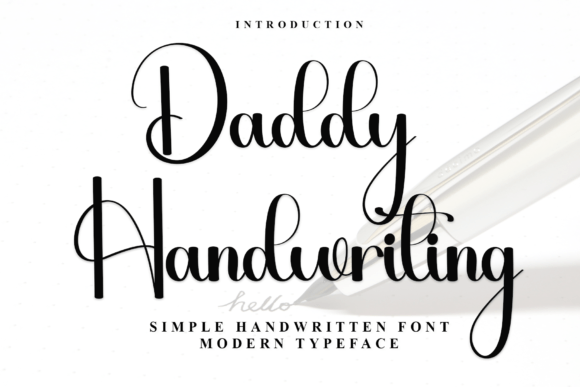
Daddy Handwriting Font: A Festive and Merry Typeface for the Holiday Season
The holiday season is upon us, and with it comes the need for festive and merry designs that capture the spirit of Christmas. One of the most important elements of any design is the typography, and that’s where the Daddy Handwriting Font comes in. This beautiful font is perfect for adding a touch of enchantment to your designs, whether you’re creating greeting cards, gift tags, or holiday-themed projects.
What is Daddy Handwriting Font?
Daddy Handwriting Font is a decorative typeface that is specifically designed to evoke the feeling of the holiday season. With its whimsical flair and festive elements, this font is sure to bring a cheerful and nostalgic ambiance to your words. The font is PUA encoded, which means that you can access all of the amazing glyphs and ligatures with ease.
Features of Daddy Handwriting Font
So, what makes Daddy Handwriting Font so special? Here are just a few of its key features:
- Festive and Merry: This font is specifically designed to capture the spirit of the holiday season. With its decorative elements and whimsical flair, it’s perfect for adding a touch of enchantment to your designs.
- PUA Encoded: The font is PUA encoded, which means that you can access all of the amazing glyphs and ligatures with ease. This makes it easy to use and customize the font to suit your needs.
- Decorative Elements: The font features a range of decorative elements, including swashes, flourishes, and ligatures. These elements add a touch of elegance and sophistication to your designs.
- Whimsical Flair: The font has a playful, whimsical feel that’s perfect for holiday-themed projects. It’s sure to bring a smile to the faces of your readers.
Uses for Daddy Handwriting Font
So, what can you use Daddy Handwriting Font for? The possibilities are endless, but here are a few ideas to get you started:
- Greeting Cards: This font is perfect for creating festive and merry greeting cards for the holiday season. Use it to add a personal touch to your cards and make them stand out.
- Gift Tags: Add a touch of elegance and sophistication to your gift tags with Daddy Handwriting Font. The font’s decorative elements and whimsical flair make it perfect for gift tags.
- Holiday-Themed Projects: Whether you’re creating a holiday-themed website, social media post, or print project, this font is sure to add a touch of enchantment to your designs.
Tips for Using Daddy Handwriting Font
Here are a few tips for using Daddy Handwriting Font:
- Use it Sparingly: While Daddy Handwriting Font is perfect for holiday-themed projects, it’s best to use it sparingly. Use it for headings or titles, and pair it with a simpler font for body text.
- Experiment with Colors: The font looks great in a range of colors, from traditional holiday colors like red and green to more modern colors like blue and purple. Experiment with different colors to find the one that works best for your design.
- Don’t Forget the Glyphs and Ligatures: One of the best things about Daddy Handwriting Font is its range of glyphs and ligatures. Don’t forget to use these to add a touch of elegance and sophistication to your designs.
Daddy Handwriting Font is a beautiful and festive typeface that’s perfect for the holiday season. With its decorative elements and whimsical flair, it’s sure to add a touch of enchantment to your designs. Whether you’re creating greeting cards, gift tags, or holiday-themed projects, this font is sure to bring a cheerful and nostalgic ambiance to your words. So why not give it a try and see the magic of Christmas Font for yourself?
- What is Daddy Handwriting Font? Daddy Handwriting Font is a decorative typeface that is specifically designed to evoke the feeling of the holiday season.
- Is Daddy Handwriting Font PUA encoded? Yes, Daddy Handwriting Font is PUA encoded, which means that you can access all of the amazing glyphs and ligatures with ease.
- What can I use Daddy Handwriting Font for? You can use Daddy Handwriting Font for a range of projects, including greeting cards, gift tags, and holiday-themed projects.